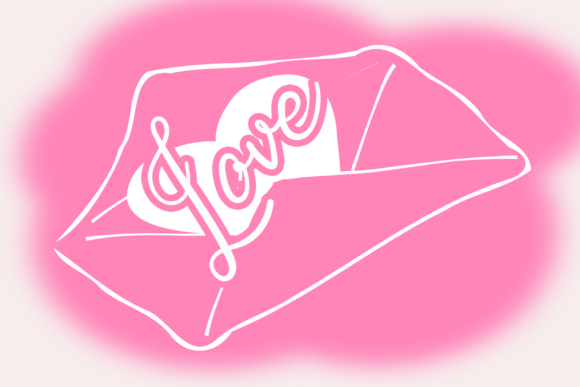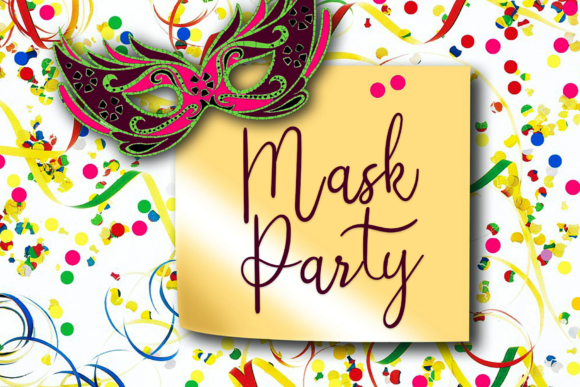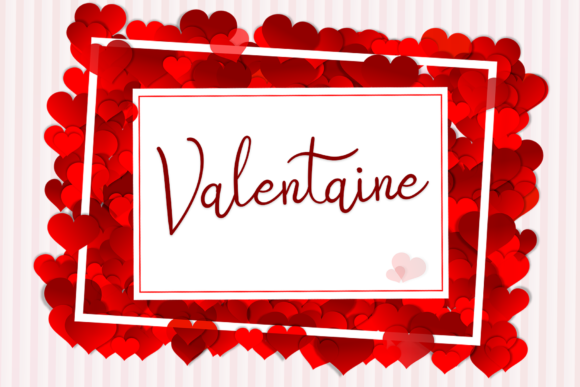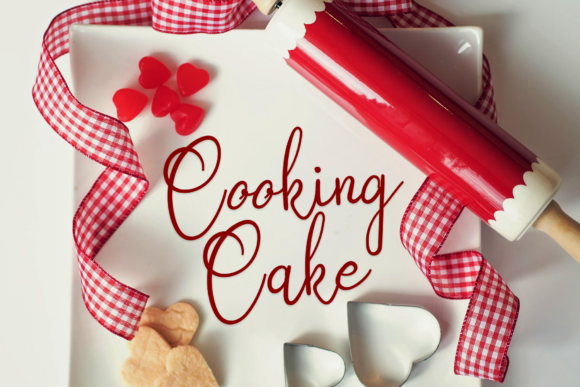
About Febriana Font
Febriana is a joyful and delicate handwritten font. Dainty and elegant, this font will be ideal for writing wedding invitations, cards or any other design that may need a romantic, festive touch!